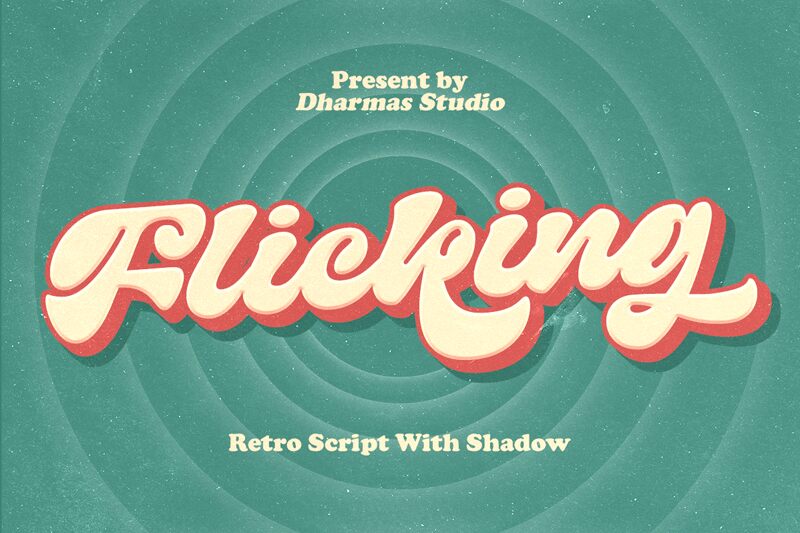
Flicking, designed by Dharmas Studio, is a display font that makes a bold statement with its groovy style and extra-bold weight. Its fluid curves and dynamic flow evoke the spontaneous energy of the 1960s and 70s psychedelic movement, infusing any project with a sense of creativity and flair.
The assertive thickness of Flicking's characters ensures high impact readability, making it an ideal choice for headlines, posters, and branding that require a touch of retro charm. Whether you're looking to capture the essence of vintage design or simply want to stand out with distinctive typographic artistry, Flicking offers versatility wrapped in a visually captivating package.